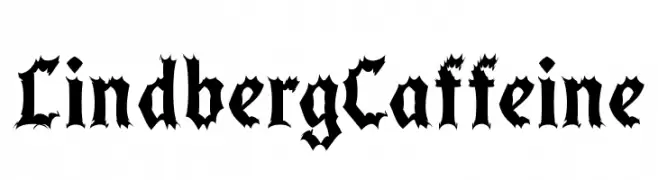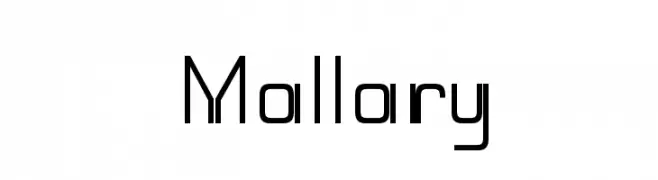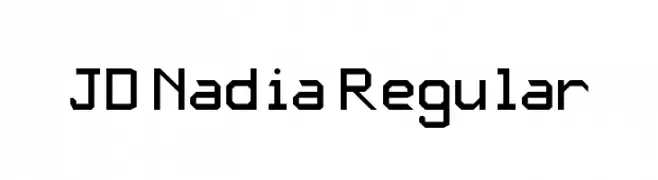
An ornate, calligraphic font with intricate swirls and flourishes.
A playful, cursive handwritten font with fluid, connected letters.
A whimsical, decorative font with swirling embellishments and a hand-drawn feel.
A playful, whimsical script font with fluid, interconnected letters.
A bold, Gothic-style font with sharp, angular lines and intricate details.
A bold, gothic-inspired font with a strong, medieval aesthetic.
A bold, pixelated font with a retro arcade game style.
A bold, jagged font with sharp edges and a fierce style.
A modern, geometric font with clean lines and a minimalist style.